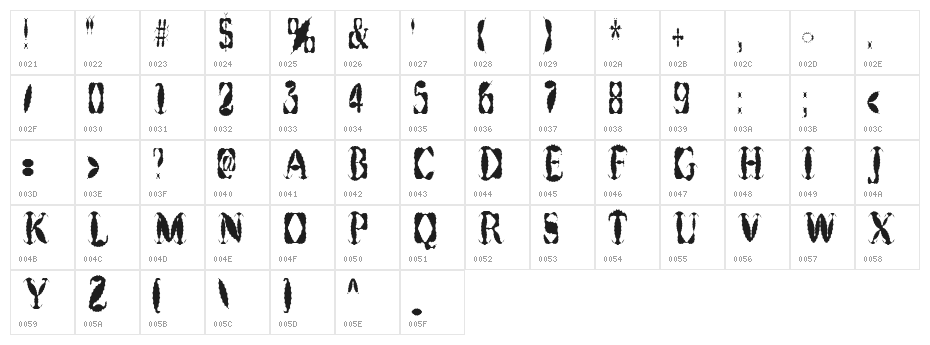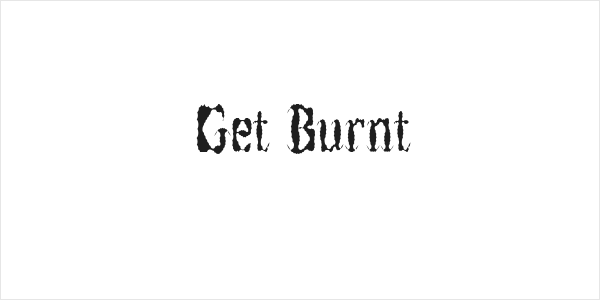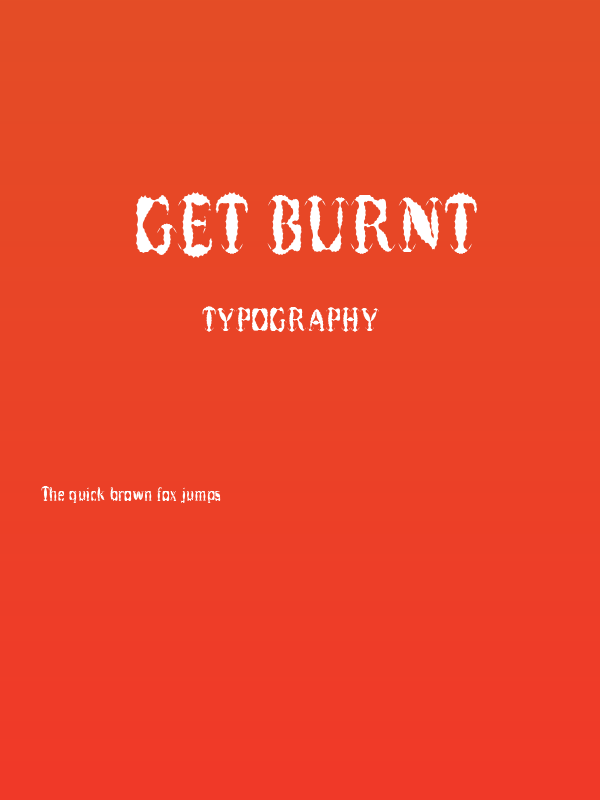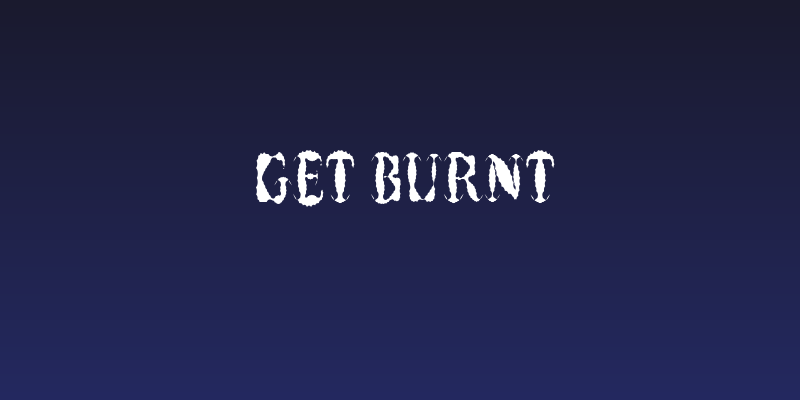
Get Burnt Font
Get Burnt Description
This font features a unique, distressed appearance that mimics the effect of letters being burnt or eroded. The characters have irregular edges and a textured look, giving them a rugged and dynamic feel. The uppercase and lowercase letters maintain a consistent style, with a bold presence that stands out. Numbers and special characters follow the same design, ensuring a cohesive look across all text elements. This font is perfect for projects that require a dramatic and eye-catching typeface, such as posters, album covers, or themed event invitations.
| Proposed Projects | Ideal for posters, album covers, themed event invitations, and dramatic design projects. |